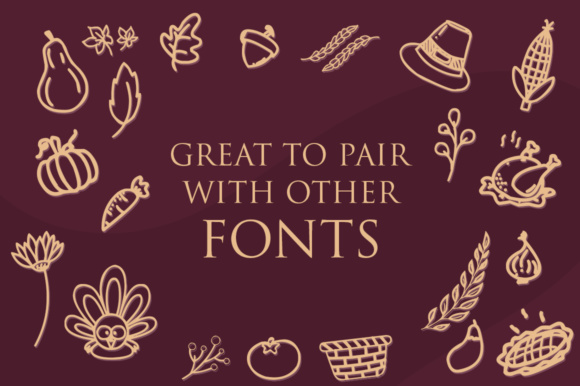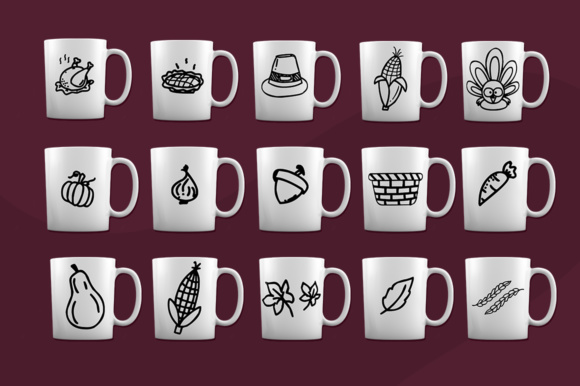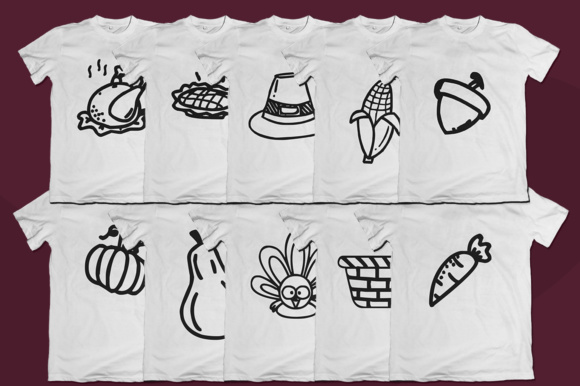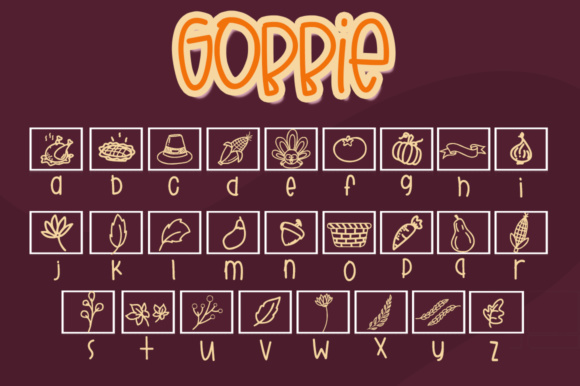
Gobbie Font: A Thanksgiving-Themed Doodle Delight for Designers and Crafters
Are you looking for a unique and festive font to add a personal touch to your designs and crafts? Look no further than the Gobbie Font, a delightful collection of Thanksgiving-themed doodles that’s perfect for mixing and matching with your other fonts and designs. With this full-of-thanksgiving-theme doodles font, you can create your own personalized cards, merchandise, t-shirts, and more to make your warm moments even more special.
What is Gobbie Font?
Gobbie Font is a digital font package that features a wide range of Thanksgiving-themed doodles, including turkeys, pumpkins, leaves, and other seasonal icons. This font is designed to be versatile and easy to use, making it perfect for designers, crafters, and anyone looking to add a personal touch to their projects.
Features of Gobbie Font
- Unique and Festive Designs: Gobbie Font features a wide range of unique and festive Thanksgiving-themed doodles that will add a personal touch to your designs and crafts.
- Versatile: Gobbie Font can be used for a wide range of projects, from personalized cards and invitations to merchandise and t-shirts.
- Scalable: The font is scalable, making it perfect for use on a variety of materials, from small cards to large banners.
- Create Personalized Cards: Use Gobbie Font to create personalized cards for Thanksgiving, birthdays, and other special occasions.
- Design Merchandise: Add a personal touch to your merchandise, such as t-shirts, mugs, and tote bags, with Gobbie Font.
- Make Invitations: Create festive invitations for your Thanksgiving gatherings and parties using Gobbie Font.
- Decorate Your Home: Use Gobbie Font to create custom wall art, garlands, and other decorations for your home.
- Adds a Personal Touch: Gobbie Font allows you to add a personal touch to your designs and crafts, making them truly unique and special.
- Versatile: Gobbie Font can be used for a wide range of projects, making it a great addition to your design toolkit.
- Festive and Fun: Gobbie Font is perfect for creating festive and fun designs and crafts for Thanksgiving and other special occasions.
- Experiment with Different Combinations: Don’t be afraid to experiment with different combinations of doodles and fonts to create unique and interesting designs.
- Use High-Quality Images: Use high-quality images of the doodles to ensure that your designs look professional and polished.
- Play with Color: Don’t be afraid to play with color and add your own personal touch to the designs.
Gobbie Font is a delightful collection of Thanksgiving-themed doodles that’s perfect for designers, crafters, and anyone looking to add a personal touch to their projects. With its unique and festive designs, ease of use, and versatility, Gobbie Font is a great choice for anyone looking to create personalized cards, merchandise, and more. So why wait? Download Gobbie Font today and get ready to add a personal touch to your designs and crafts!